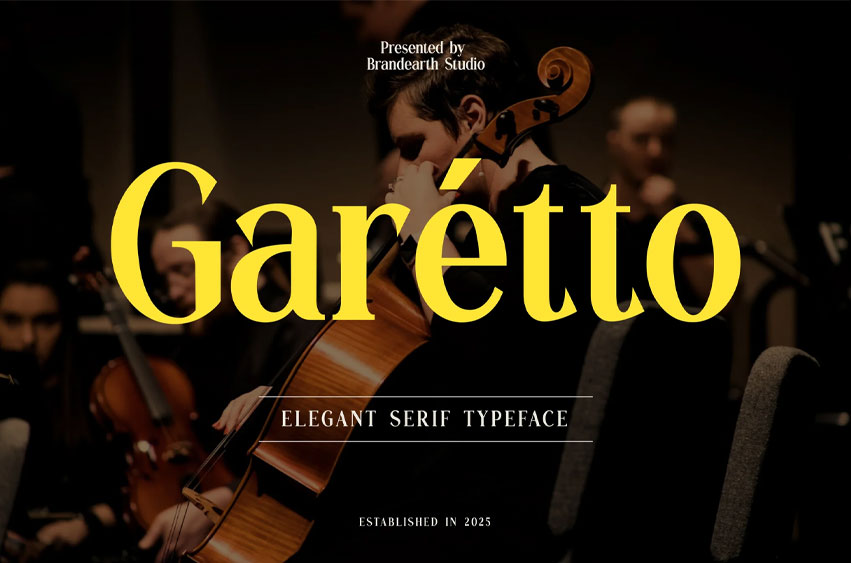
Garétto Font
Garétto Font Elegant Serif Font typeface that captures the essence of vintage sophistication and modern refinement. With its expressive curves, strong contrast, and timeless aesthetics, Garetto is perfect for fashion editorials, luxury branding, wedding invitations, and classic-inspired design projects. It delivers both grace and power in layouts that demand attention and elegance.
• Ligatures & Alternate